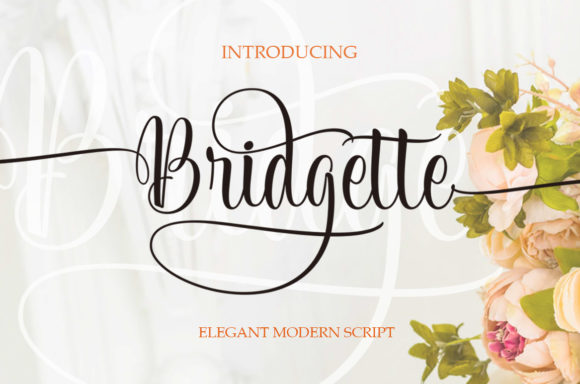
Discover the Elegance of Bridgette Font: A Timeless Calligraphy Classic
Are you looking for a font that exudes sophistication and elegance? Look no further than Bridgette Font, a beautiful typeface that pays homage to the art of classic calligraphy. With its stunning swashes and refined style, Bridgette is sure to capture your heart and elevate your design projects to new heights.
The Story Behind Bridgette Font
Bridgette Font is a carefully crafted typeface that draws inspiration from the rich tradition of calligraphy. Its creator, [Foundry/Designer Name], aimed to bring back the charm and sophistication of handwritten script fonts, while infusing them with a modern twist. The result is a font that is both timeless and contemporary, perfect for a wide range of design applications.
Characteristics of Bridgette Font
So, what makes Bridgette Font so special? Here are some of its key characteristics:
- Beautiful Swashes: Bridgette Font features stunning swashes that add a touch of elegance to any text. These swashes can be used to create beautiful connections between letters, making your text look like it was written by hand.
- Sophisticated Style: Bridgette has a refined and sophisticated style that is perfect for high-end designs. Its classic calligraphy roots give it a sense of luxury and refinement.
- High Versatility: Bridgette Font is highly versatile and can be used for a wide range of design projects, from wedding invitations and branding materials to packaging and digital media.
- Excellent Legibility: Despite its ornate swashes and classic style, Bridgette Font remains highly legible, making it perfect for body text and longer passages.
Using Bridgette Font in Your Designs
Bridgette Font is an incredibly versatile typeface that can be used in a variety of design contexts. Here are some ideas to get you started:
Wedding Invitations and Stationery
Bridgette Font is perfect for wedding invitations, save-the-dates, and other stationery. Its elegant swashes and sophisticated style make it an ideal choice for formal events.
Branding and Packaging
Bridgette Font can add a touch of luxury to your branding and packaging designs. Use it to create eye-catching labels, business cards, and brochures that exude sophistication.
Digital Media
Bridgette Font can also be used in digital media, such as website headers, social media graphics, and email newsletters. Its high legibility and beautiful swashes make it perfect for online content.
Tips for Working with Bridgette Font
Here are some tips for getting the most out of Bridgette Font:
- Experiment with Swashes: Bridgette Font’s swashes are one of its most distinctive features. Experiment with different swash combinations to create unique and beautiful connections between letters.
- Pair with Simple Fonts: Bridgette Font is a statement font, so it’s best paired with simpler fonts that won’t compete with it. Try pairing it with a clean sans-serif font for a beautiful contrast.
- Adjust Font Size and Weight: Bridgette Font can be used at a variety of font sizes and weights. Experiment with different sizes and weights to find the perfect balance for your design.
| Font Name | Bridgette Font |
| Author | Byuly Ayika |
Bridgette Font is a timeless and elegant typeface that pays homage to the art of classic calligraphy. With its beautiful swashes and sophisticated style, it’s perfect for designers looking to add a touch of luxury to their projects. Whether you’re working on wedding invitations, branding materials, or digital media, Bridgette Font is sure to impress. So why not fall in love with Bridgette Font and elevate your designs to new heights?